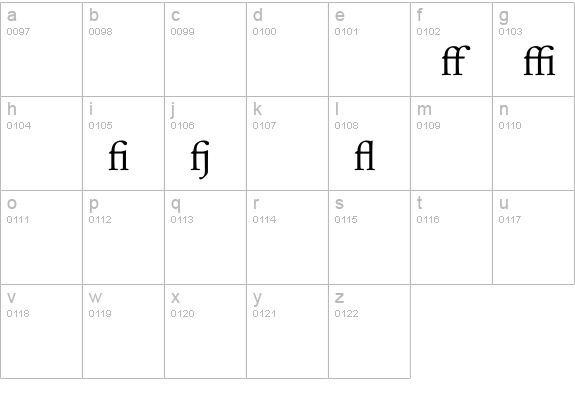
RenardNo3-RomanLig is a breathtakingly elegant font that exudes timeless sophistication. Its delicate curves and graceful lines make it the perfect choice for any project that requires a touch of refined elegance. This font is designed with meticulous attention to detail, ensuring that each character is beautifully crafted. RenardNo3-RomanLig is not just visually stunning, but also highly versatile. Whether you're designing a logo, creating a wedding invitation, or designing a website, this font will elevate your design to new heights of elegance. Its classic yet contemporary look makes it suitable for a wide range of design styles and purposes. One of the most remarkable aspects of RenardNo3-RomanLig is that it is available for free. Yes, you read that right! This stunning font can be freely downloaded at FontsMarket.com. This means that you can access this incredible font without any cost, making it an incredibly valuable asset for designers, artists, and creatives of all kinds. With RenardNo3-RomanLig, you are not only getting a beautiful font, but also the opportunity to create stunning designs without breaking the bank. Its availability as a free download ensures that anyone can enjoy and utilize this exquisite font, regardless of their budget. So why wait? Enhance your designs with the timeless elegance of RenardNo3-RomanLig. Download it for free today at FontsMarket.com and unlock a world of endless creative possibilities.